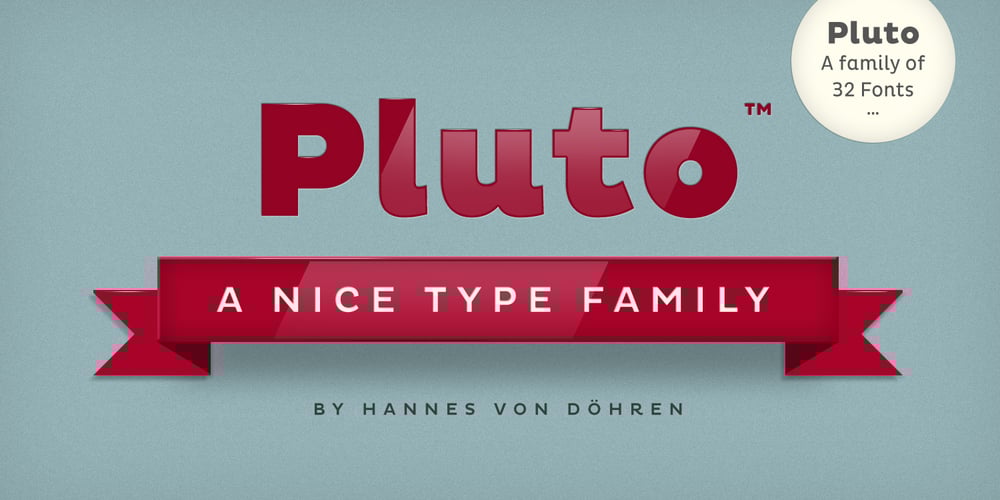
Pluto Font Family was designed by Hannes von Döhren and published by HVD Fonts. Pluto contains 32 styles and family package options. Pluto – and its straight companion Pluto Sans – was designed by Hannes von Döhren. The whole family consists of 16 Pluto Uprights, 16 Pluto Italics, 16 Pluto Sans Uprights and 16 Pluto Sans Italics; 64 fonts in all. Type designer Hannes von Döhren has created Pluto, a sweet type family consisting of 16 Uprights and 16 Italics; 32 fonts in all. The fonts are informal and friendly at first sight and lend themselves to display settings, however the straight and upright architecture of Pluto also makes it perfect for longer copy. Because of its large x-height, it even performs nicely in very small sizes. This contemporary type family is ideal for use in retail, cosmetics, food and hospitality applications and advertising. Pluto is equipped for complex, professional typography. The OpenType fonts have an extended character set to support Central and Eastern European as well as Western European languages. Each font includes alternate letters, fractions, lining-, tabular numbers, scientific superior/inferior figures and a set of arrows.